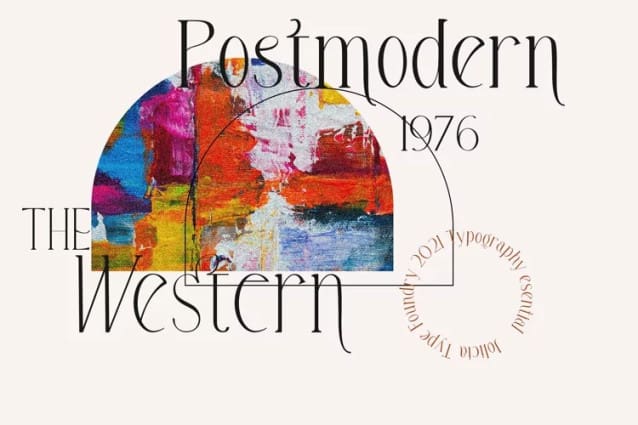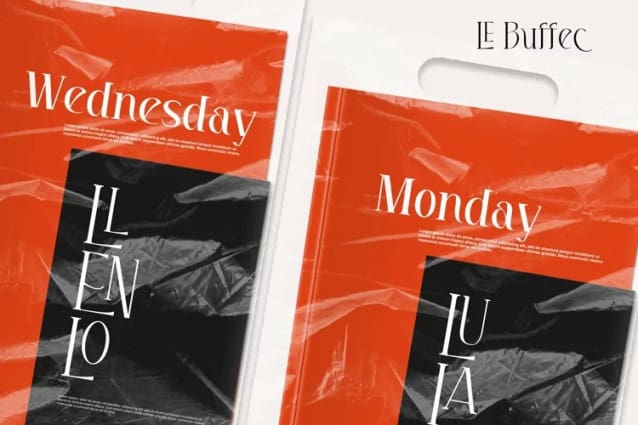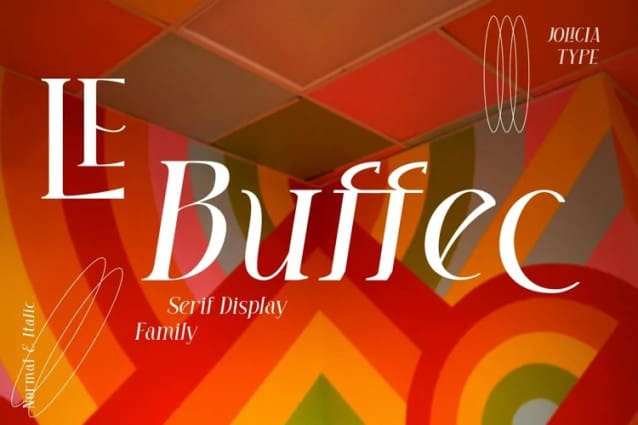
LE Buffec Font
LE Buffec Font is a modern display serif with 18 font style and complete alternates and ligature for Caps that looks stunning in just about every works.
With Full Multilingual support. well-suited for advertising, branding, logotypes, packaging, titles, headlines and editorial design.